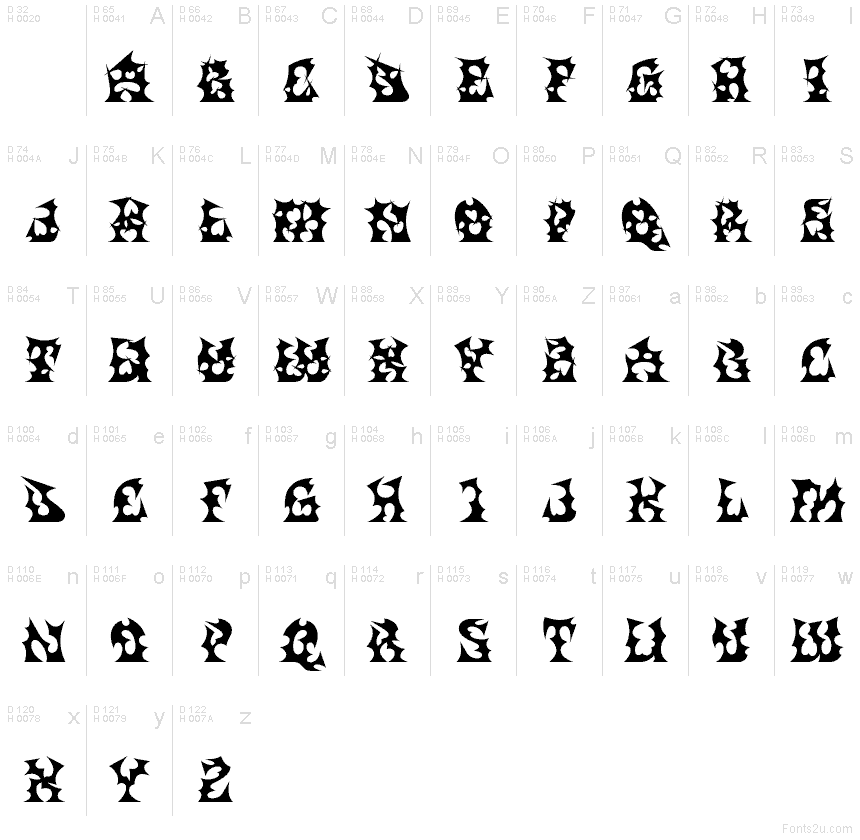
CS Redmont Regular Demo
CS Redmont font by Craft Supply Co. is a bold and scary display font with distorted, gothic-inspired shapes to evoke mystery and intensity. Its ornate detailing, aggressive form, decorative flair, and high-contrast silhouettes give it an unmatched character.
Explore its potential for artwork, comics, book covers and pages, streaming graphics, posters and flyers along with other branding materials. The free typeface could be even used as video captions or game typography where spooky typography is required.